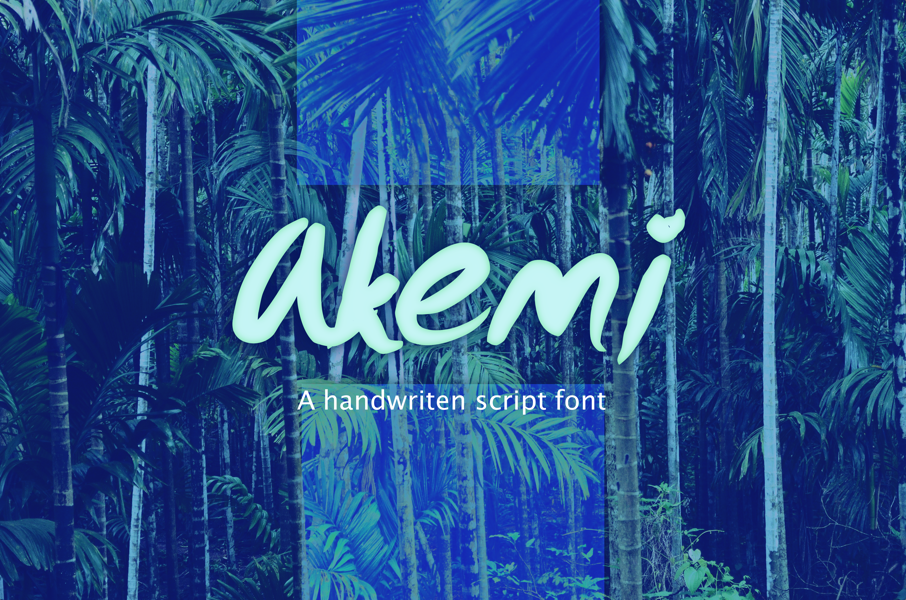
Akemi - Handwritten Script Font
Introducing: Akemi! A casual, carefree handwritten font with a personal charm. With quick bold strokes and a signature style, Akemi is perfect for branding projects, homeware designs, product packaging - or simply as a stylish text overlay to any background image.
- Akemi • A handwritten script font containing upper & lowercase characters, numerals and a large range of punctuation.